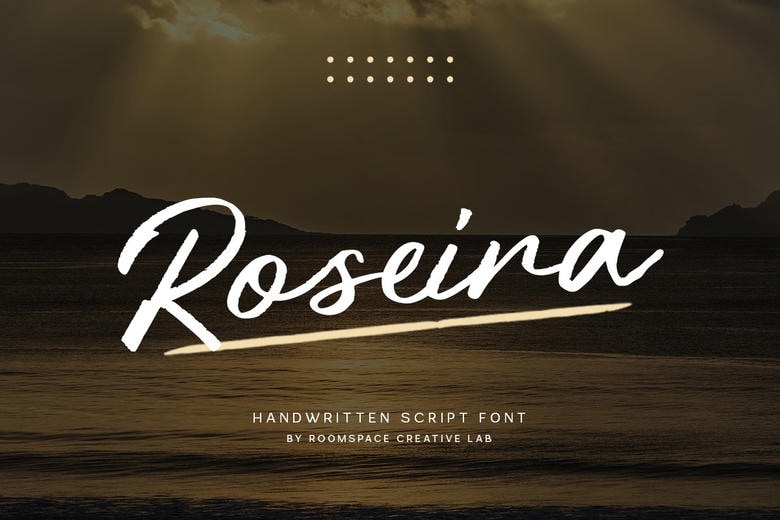
Roseira Font
Roseira is a very well-designed handwritten script typeface reflecting a graceful and refined style easily. Roseira is made to provide a personal touch to whatever you are working on, which is why it is ideal in all types of branding and logo designing to wedding invitations and social media graphics. Beautiful flow of this font recreates the natural nature of hand-lettering and it is thus the preferred font in designs that demand the warm and welcoming touch.
Roseira has the flexibility and appeal you seek whether you are producing a classic wedding collection or a state of the art branding package. This font is fully multilingual and is set to serve a global audience thus it has never been easier before to say what you want to the world. Its up-designed glyphs make every character flow in a smooth manner giving a professional touch to your work.
Roseira Handwritten Brush Script Font